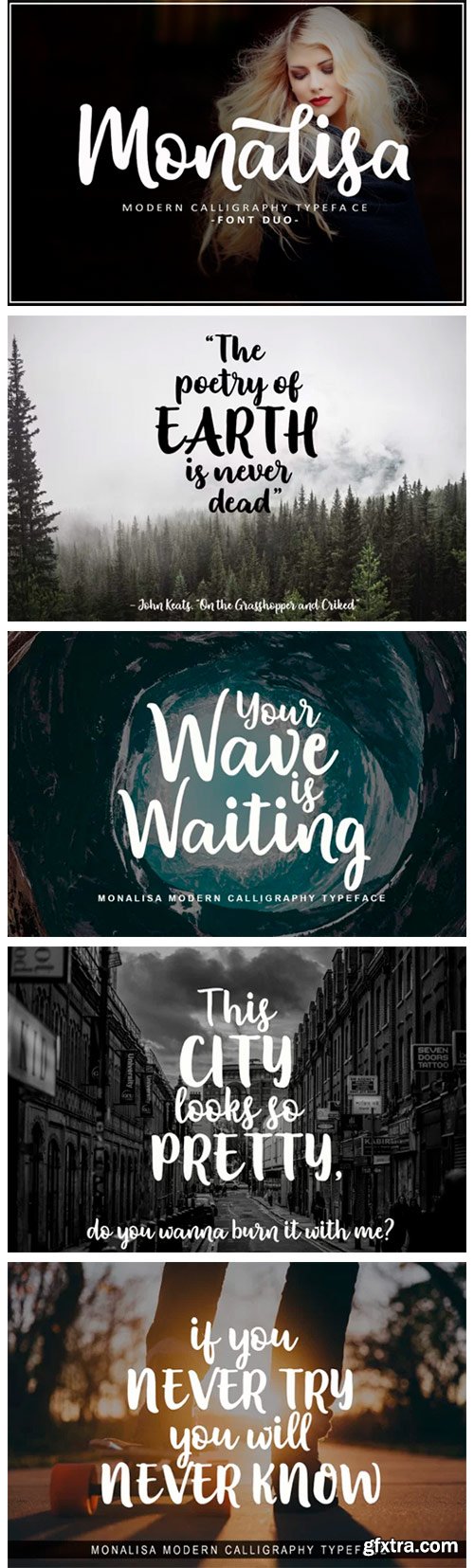
Monalisa Script Font
Monalisa Script is a handwritten stylish copperplate calligraphy font, Monalisa Script will give your design a classic and elegant touch with it’s dancing baseline. Monalisa Script can be used for various purposes such as headings, signatures, logos, wedding invitations, t-shirts and much more!